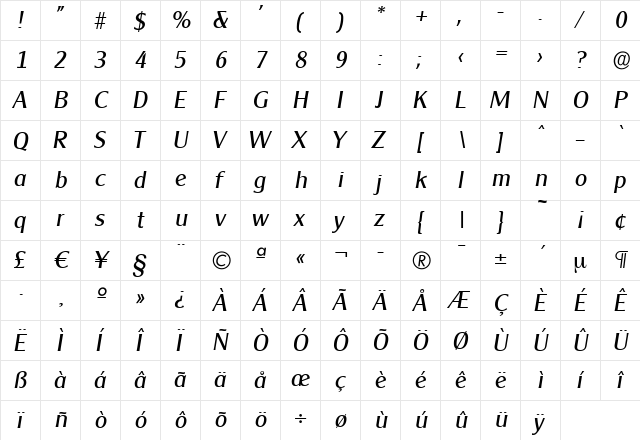
AlexanderBecker Italic Font Preview
AlexanderBecker Italic
AlexanderBecker Italic Font Details
Design Context for AlexanderBecker Typeface
AlexanderBecker is a composed and adaptable typeface that performs quietly and consistently across a wide range of design contexts. The dynamic lean of this cut emphasises speed and emphasis in any layout.
Pro Tip: Try AlexanderBecker for annotation and caption copy alongside an upright companion — the contrast in angle creates a dynamic but ordered typographic system.